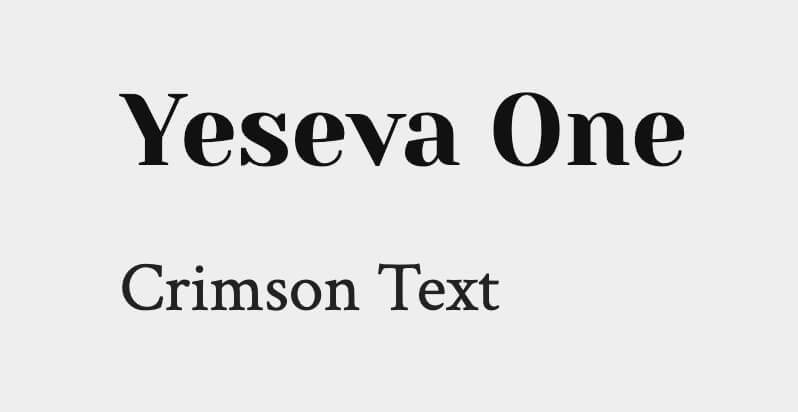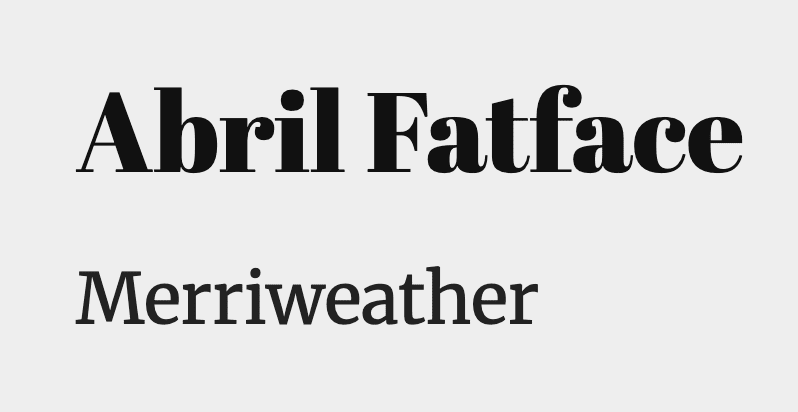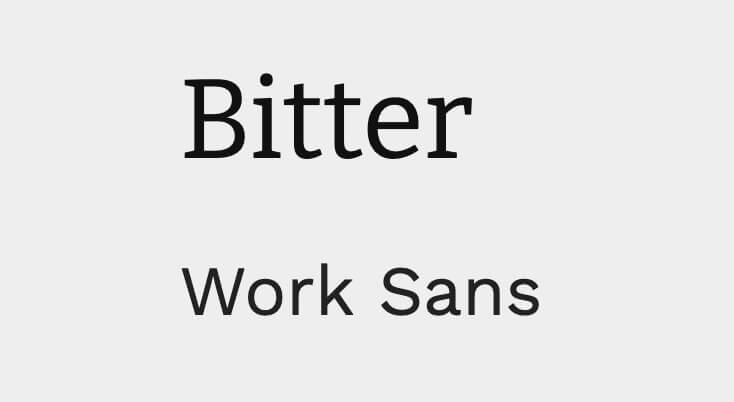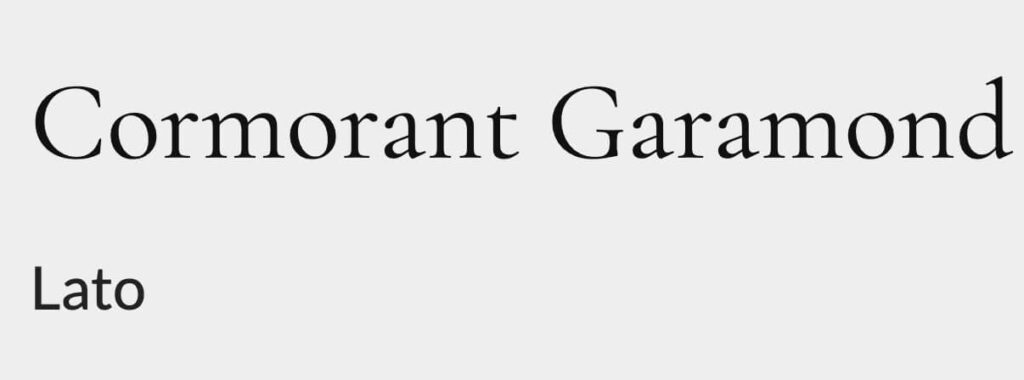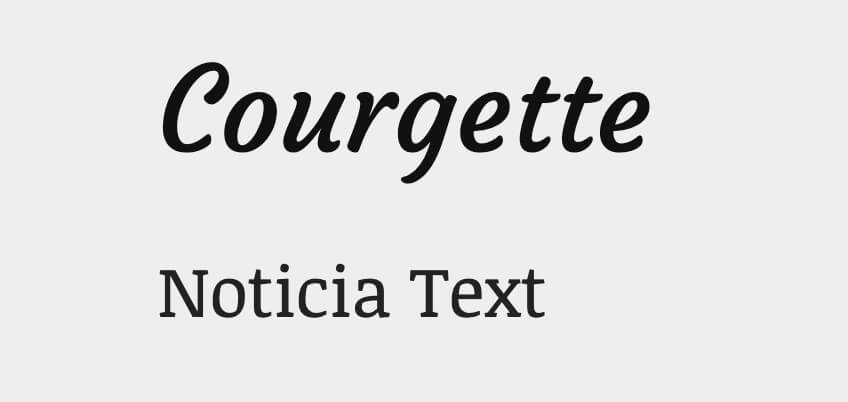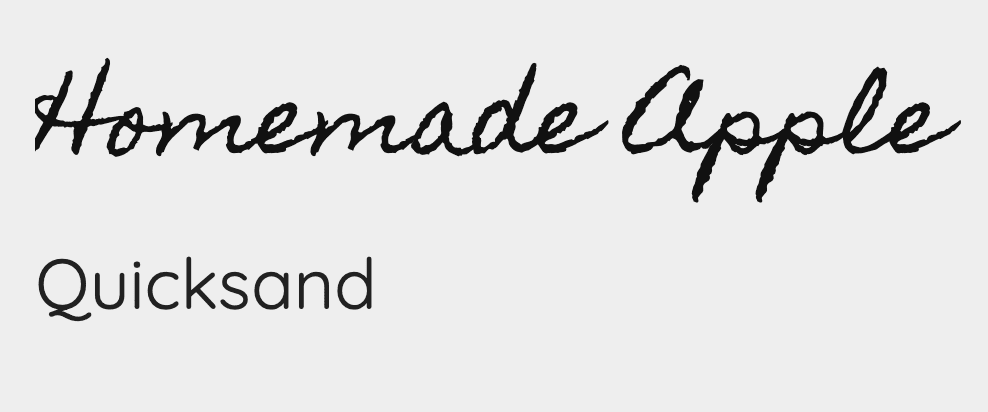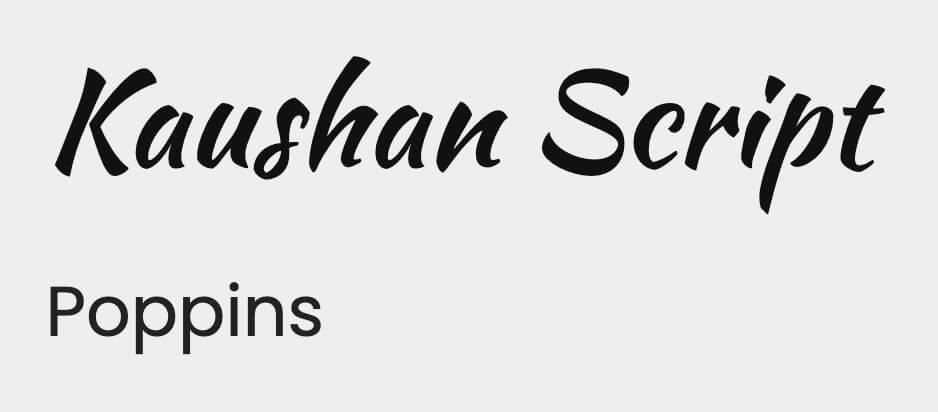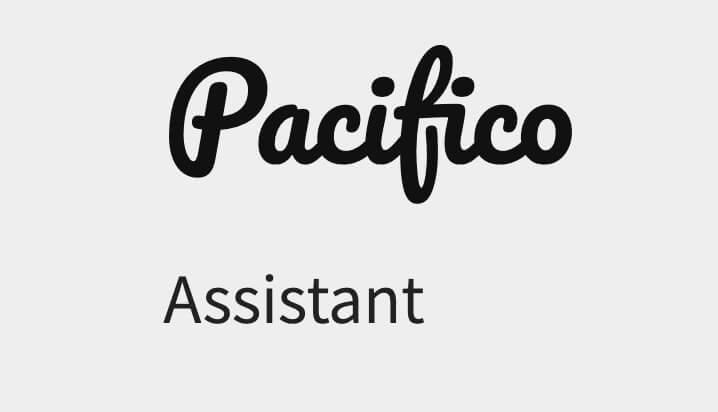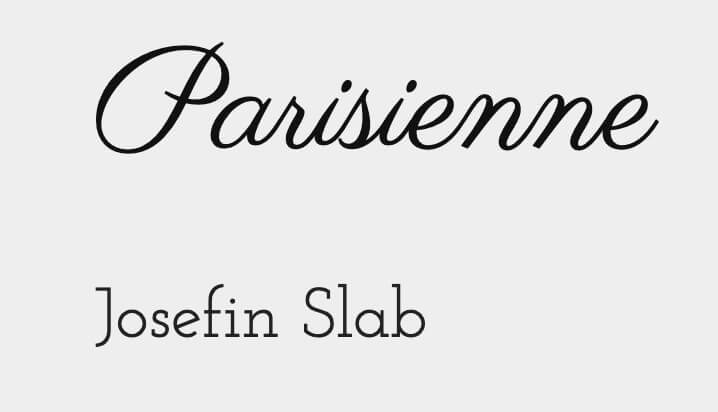
Tried-and-True Font Pairings For Every Design Project
Picking the right font for your design project feels like a big win, no doubt! But the bigger challenge arises when you have to choose another font to go with it. Because even the best-looking fonts with strong personalities might lose their charm when you pair them with the wrong fonts. The wrong choice might lead to one font diluting the effect of another or overpowering it. The key to avoiding this? Strategic font pairing!
If you are wondering how to pair fonts, our previous blog covers some actionable tips and tricks to arrive at the right font combinations for your designs. But if you need some quick inspiration, then today’s blog has got you covered.
We have curated a list of creative and unique font pairs for every design requirement. Without further ado, let’s dive into some font inspiration.
Serif + Sans Serif
One of the easiest font pairing strategies is to combine sans serif fonts with serif fonts. This classic combination is known to help enhance readability and hierarchy while also adding a touch of elegance. The traditional vibe of serif fonts and the fuss-free, clean look of most sans serif fonts work well together.
Now let’s talk about some easy serif + sans serif font pairings to use in your design.
1. Bitter + Work Sans
The clean, minimal style of Work Sans seamlessly pairs with the strong vibe of Bitter. Given the excellent readability of both these fonts, they are great options for digital-first designs. Particularly, when it comes to establishing a clear hierarchy, the contrast between these fonts helps.
KIMP Tips:
• Given the strong presence of Bitter, avoid overusing it or using it in dense body text.
• Considering the geometric letterforms in Work Sans, ensure proper line width to ensure that the text does not look cramped.
2. Cormorant Garamond + Lato
The big, bold Cormorant Garamond for the hero text or heading and Lato for body text is another visually balanced choice. The high contrast and subtle calligraphic style give Cormorant Garamond a refined look. On the other hand, Lato, with its minimal appeal, excels in readability.
Therefore, this combination makes an excellent choice for industries that call for a touch of sophistication, like luxury fashion and premium cosmetics, or even cultural institutions.
KIMP Tips:
• To add more character to your design, use Cormorant Garamond in large text sizes.
• Remember that this font pairing has more of an artistic flair and might not work as well in technical or utilitarian designs or even technology-focused niches.
3. Playfair Display + Montserrat
The Didone-style serif font, Playfair Display, makes an elegant choice for headings and text that needs to draw attention. Along with this bold font, the geometric style of Montserrat creates a visually appealing combination.
This font pairing is particularly effective when it calls for stylish designs like for a fashion brand or even for lifestyle brands looking to flaunt a contemporary style. The stability of Montserrat and the expressiveness of Playfair Display make them a great serif + sans serif combination.
KIMP Tips:
• Do not risk combining any other strong font that can dilute the elegance of Playfair Display. Instead, to establish hierarchy, use different weights of Montserrat.
• The sharp terminals and high contrast strokes of Playfair Display might not be as effective in small text sizes.
Script + Serif
Script fonts are known for their decorative nature, and the traditional appeal of serif fonts can effortlessly balance this and ground your design. Moreover, while Script fonts add a touch of personalization and enhance the visual appeal, they are not the best choices when it comes to readability. But serif fonts excel in that area! Therefore, this overall font pairing strategy keeps your design clear and professional.
Here are some script + serif font combinations to use in your next design project.
1. Courgette + Noticia Text
Looking for a modern font pairing with a casual vibe? Courgette + Noticia Text is a unique combination to explore.
The partially connected handwritten style of the Courgette font feels informal and approachable. So the modern and clean Noticia Text pairs well with it. From designs that target a young audience to family-friendly niches meant to maintain a friendly approach, this font pairing works in several places.
KIMP Tips:
• Courgette might lose its charm and readability in small text sizes.
• Also, avoid all-caps text with Courgette since it might end up overwhelming the readers.
• Avoid combining this pair with other script fonts and fonts with a strong character.
2. Allura + EB Garamond
Charming, traditional, and artistic, the combination of Allura and EB Garamond can add a unique twist to your designs. Subtly decorative yet good in terms of readability, this combination is good both for branding and marketing graphics. The slight touch of luxury that Allura adds and the legibility EB Garamond brings can both make your design fashionable and functional, too!